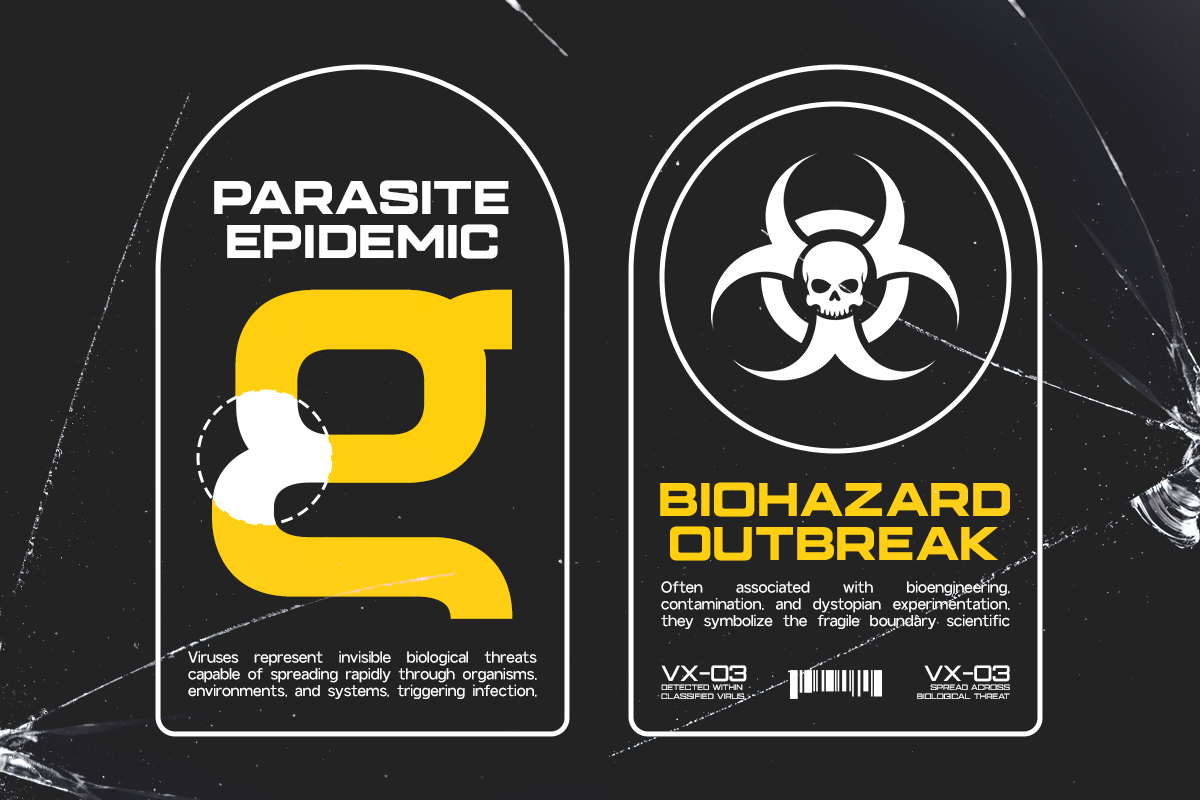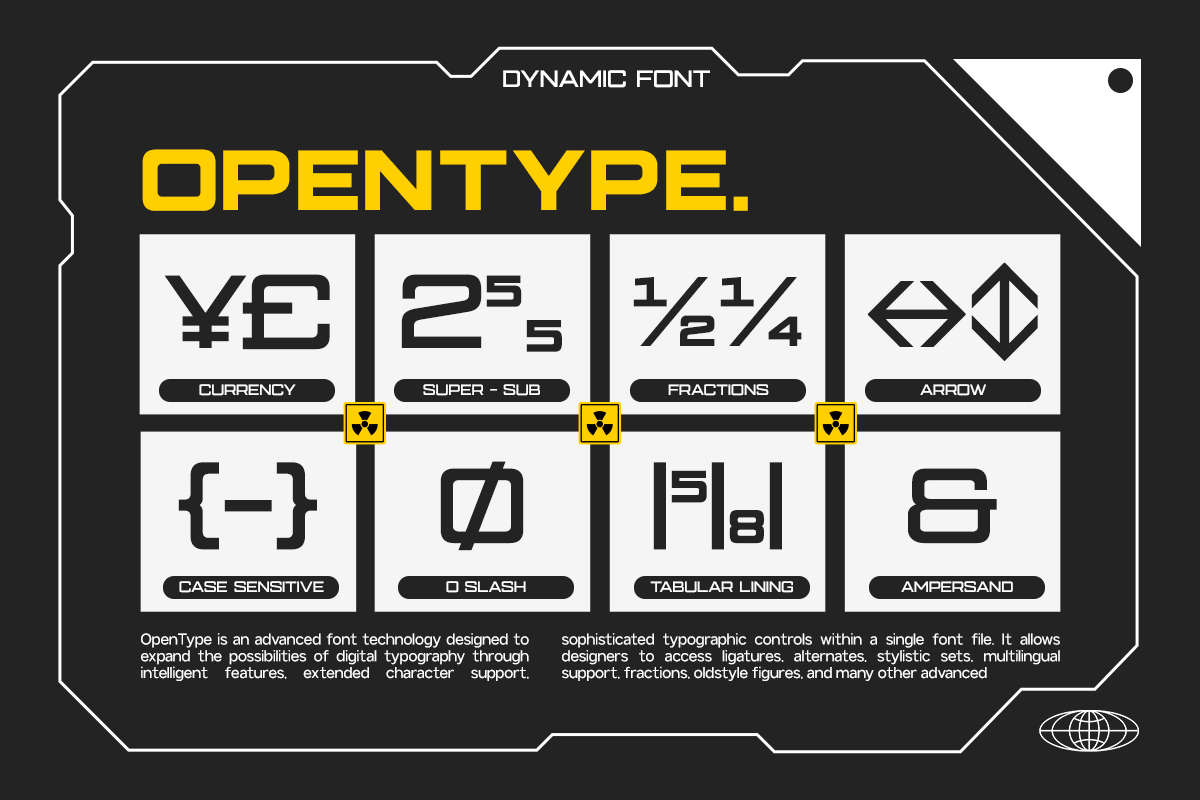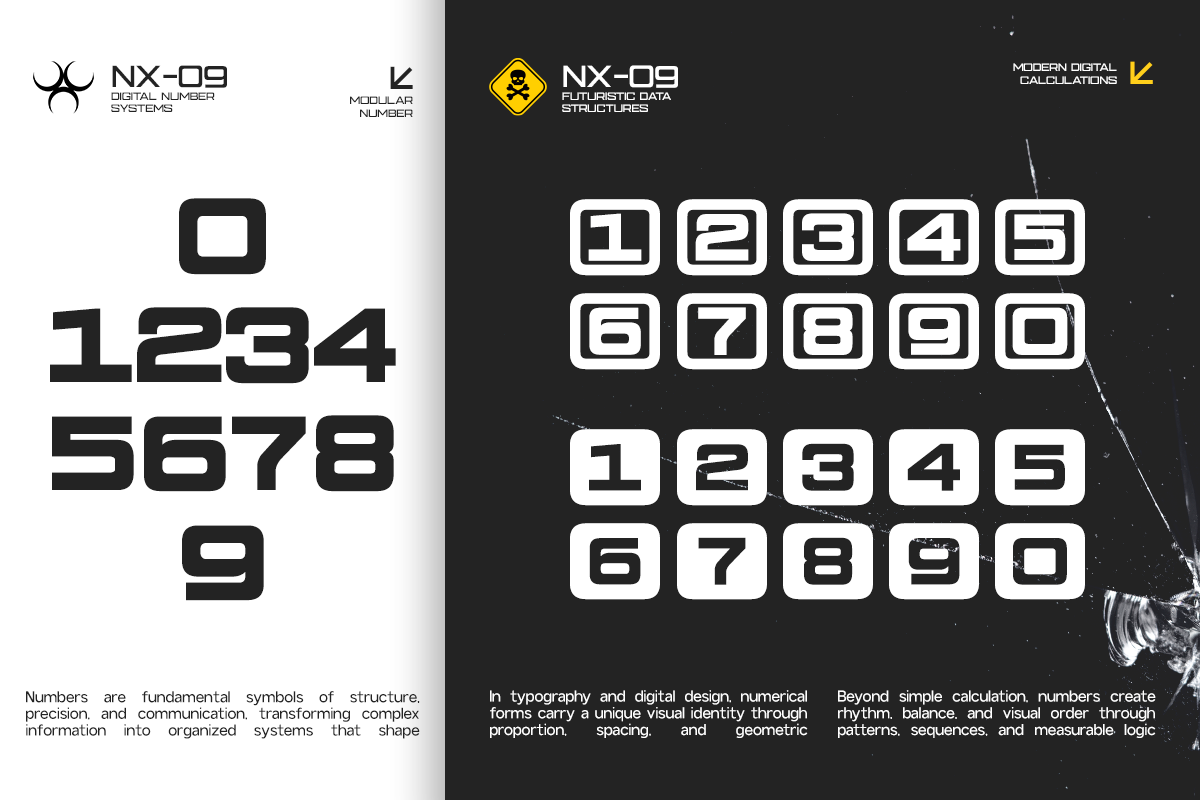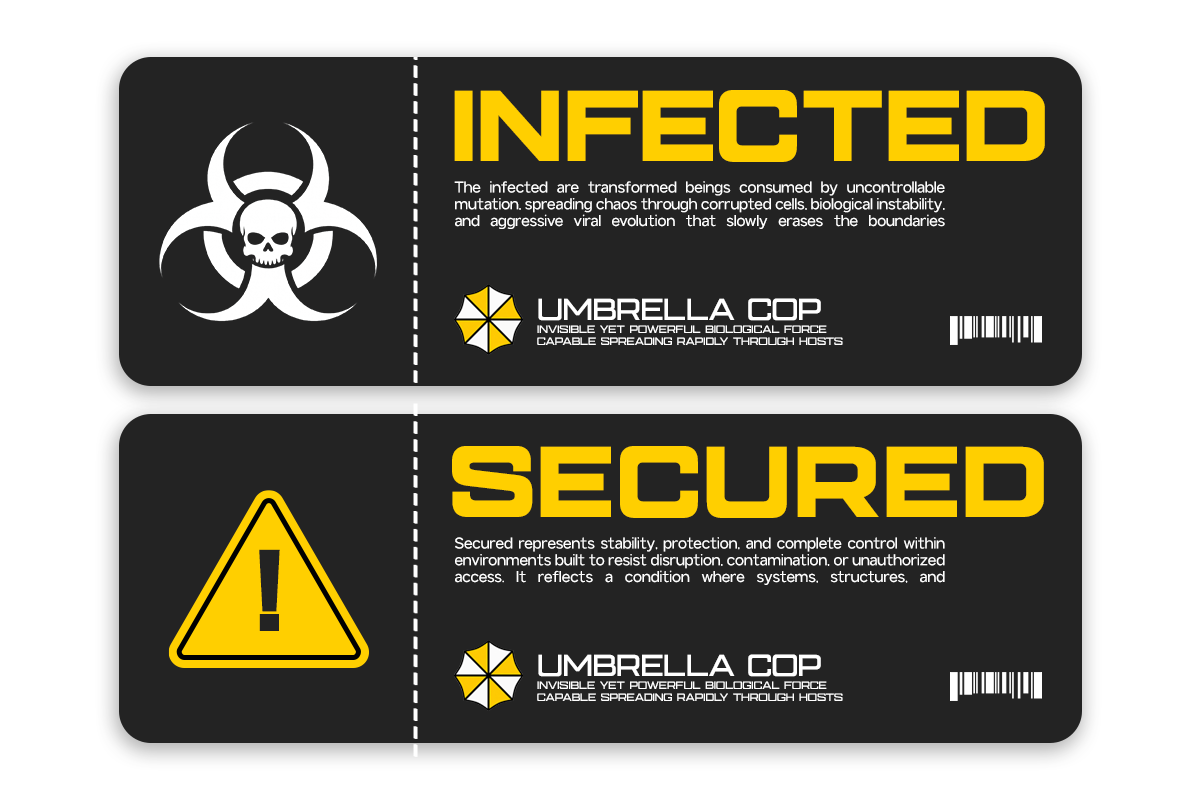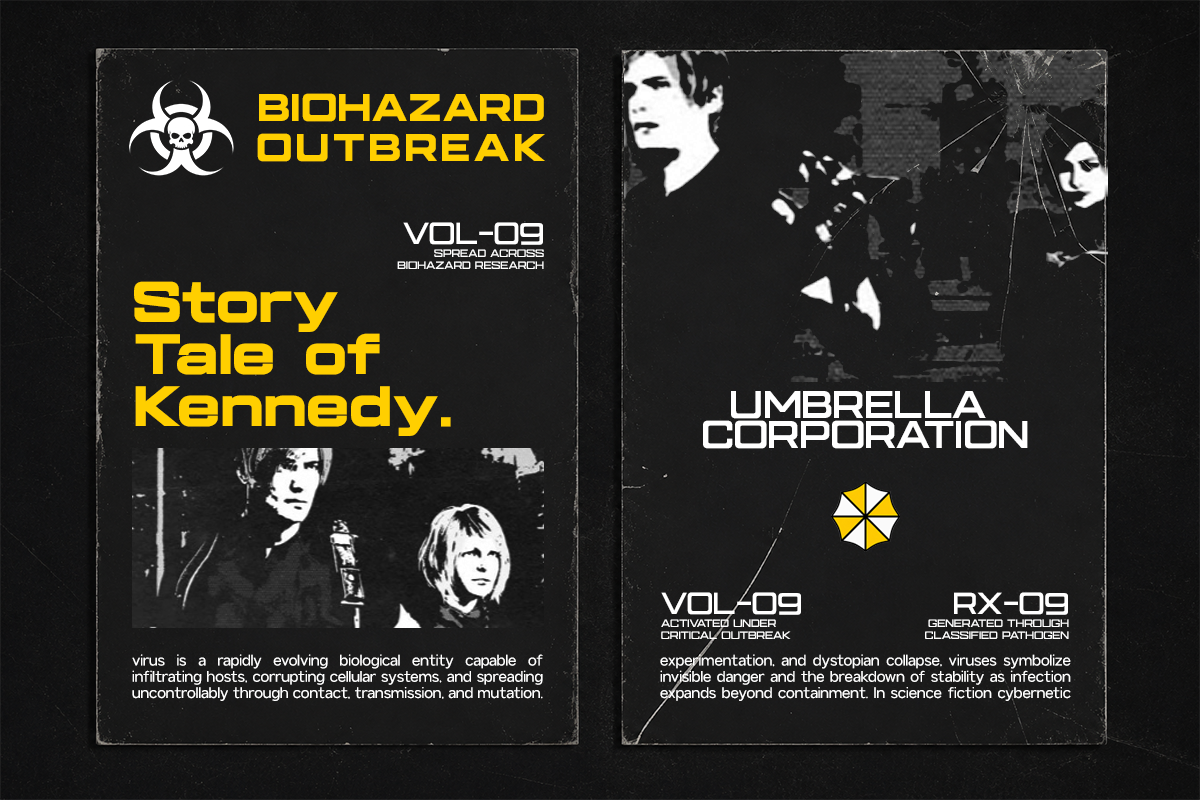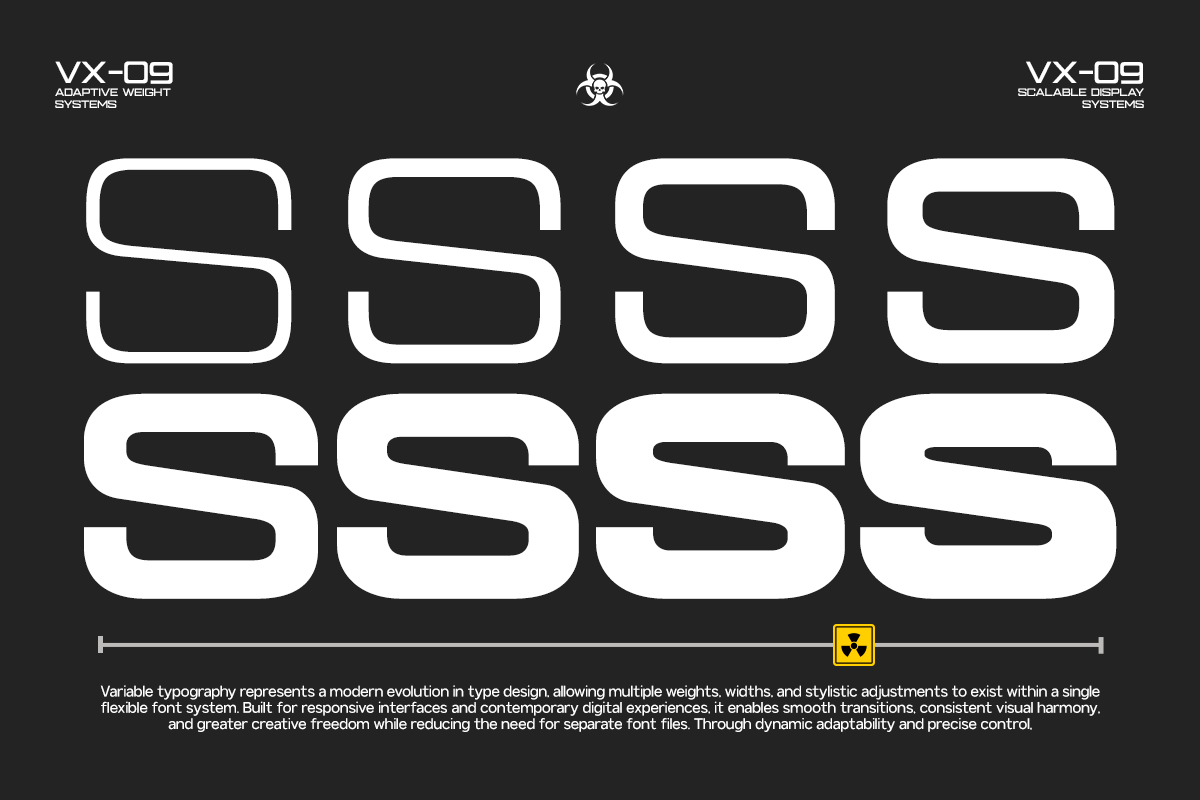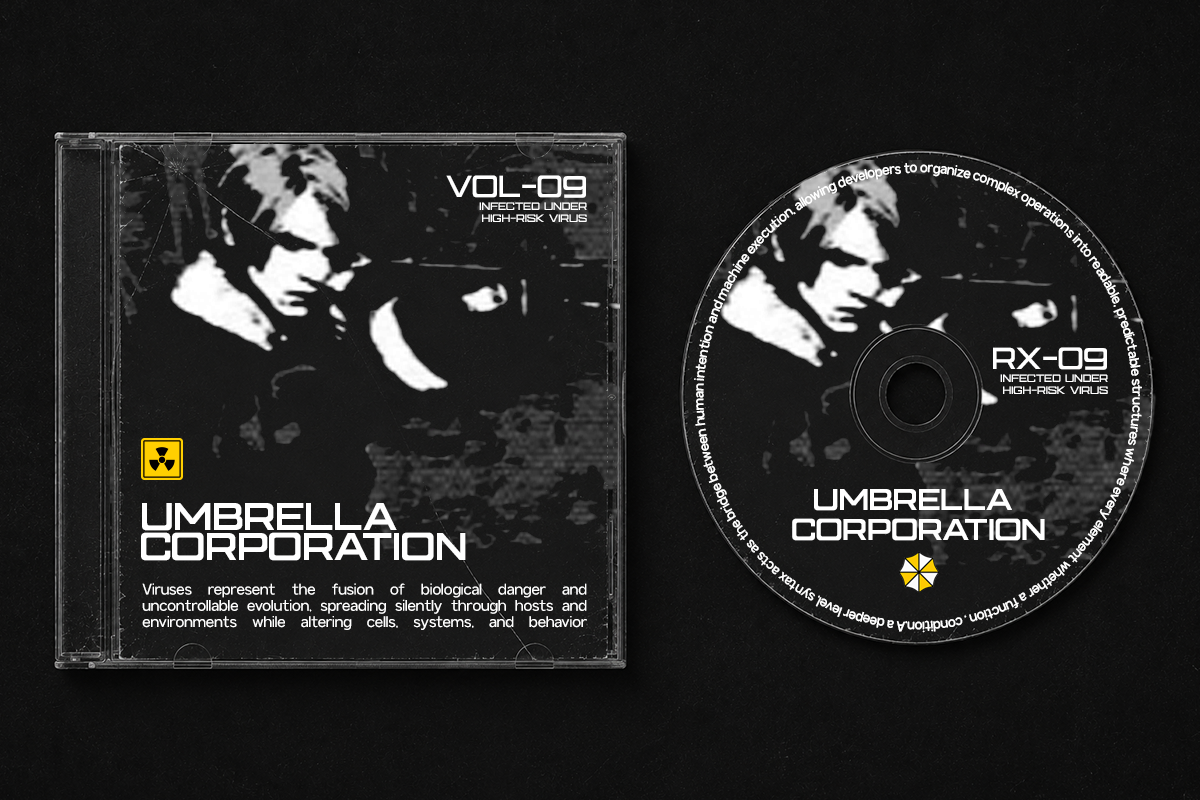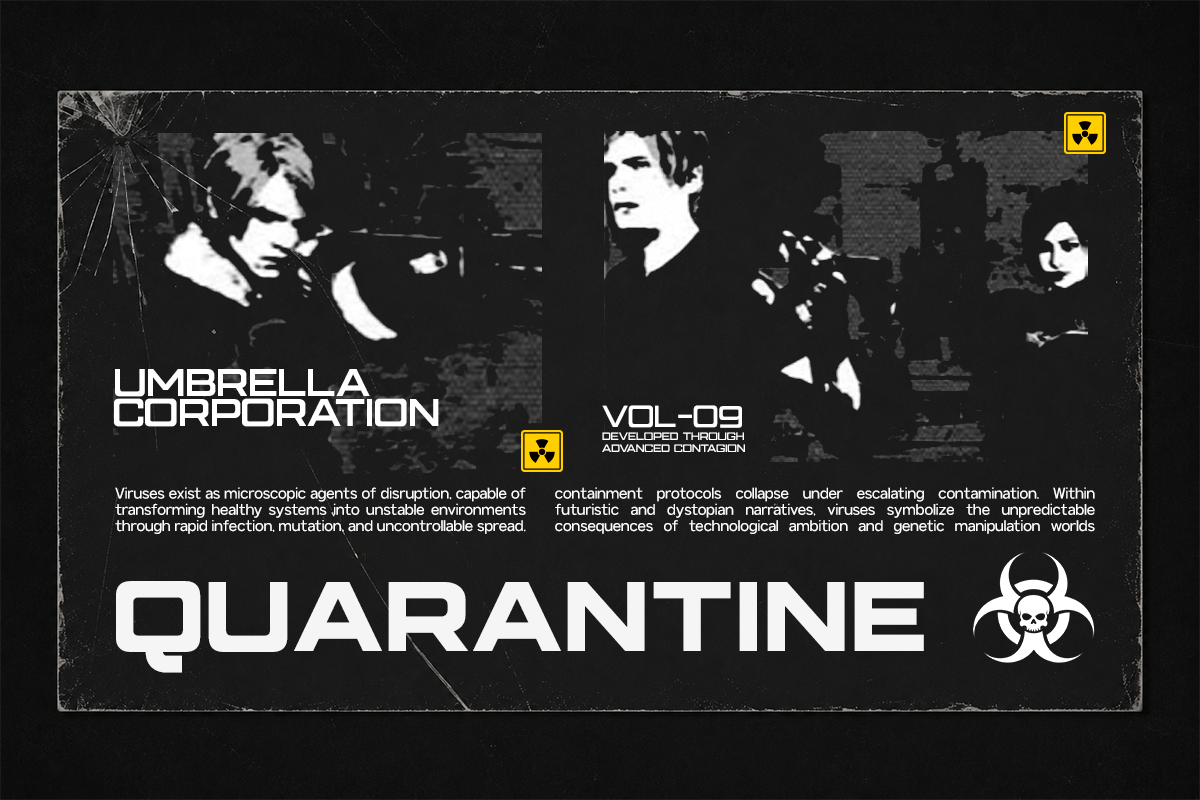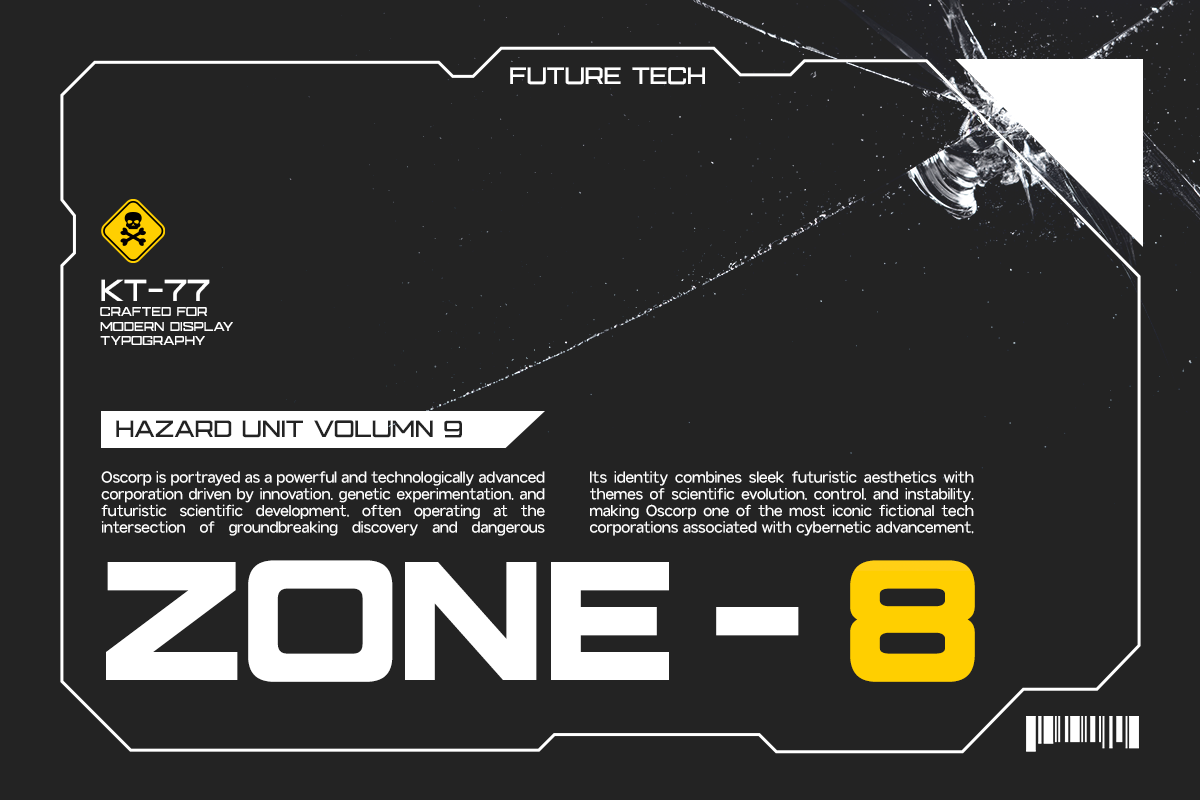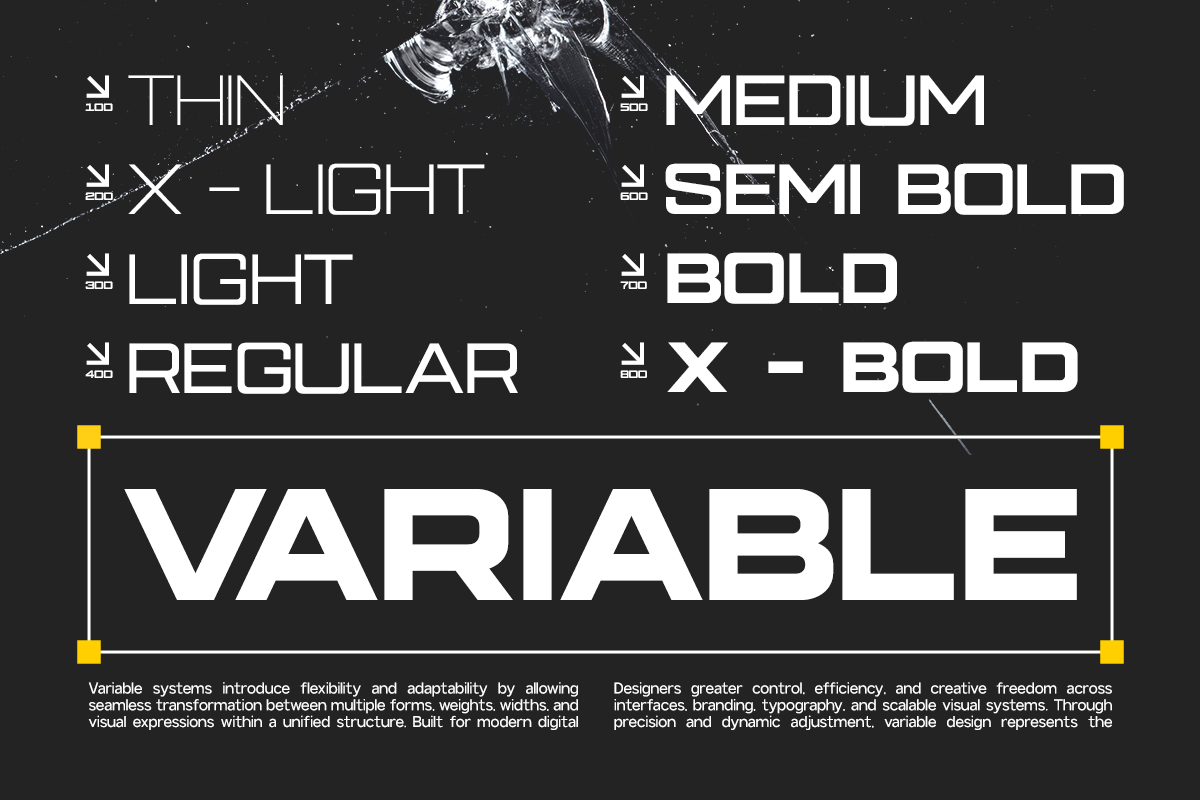
GC Oscorp – Modern Extended Sans
GC Oscorp – Modern Extended Sans is a futuristic extended sans serif typeface built with wide proportions, geometric precision, and a strong technological aesthetic. Inspired by cybernetic systems, sci-fi interfaces, and advanced digital environments, Oscorp delivers a bold visual presence with its expanded structure and carefully engineered letterforms.
Designed to create maximum impact, GC Oscorp combines extended proportions with clean geometric construction, sharp details, and modern spacing. Its wide character width creates a powerful display personality while maintaining clarity and balance, making it ideal for futuristic branding, technology identities, gaming visuals, automotive design, UI interfaces, and contemporary editorial layouts.
Variable Font (Adjustable Weight Axis)
Extended Sans Serif Design
Futuristic Geometric Construction
Wide Display Proportions
Multilingual Support (170+ Languages)
Bring futuristic structure, extended proportions, and modern digital aesthetics to your designs with GC Oscorp – Modern Extended Sans.